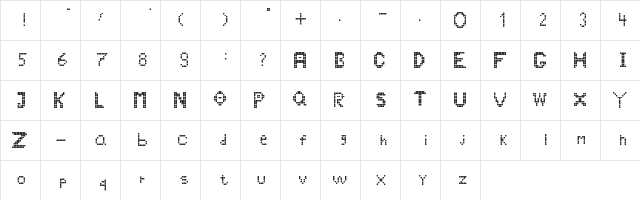
Ugly Randomness Regular
Design Context for Ugly Randomness Typeface
Ugly Randomness is a composed and adaptable typeface that performs quietly and consistently across a wide range of design contexts.